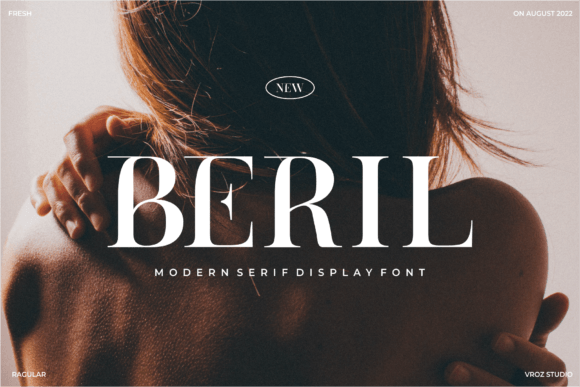
The Ultimate Guide to Beril Font: Elevate Your Designs with Modern Elegance
I’ll never forget the time I was working on a fashion magazine project, and my client asked me to create a stunning cover that would grab attention. I spent hours browsing through font libraries, but nothing seemed quite right. That’s when I stumbled upon Beril Font – a modern display serif font that instantly elevated my design game. In this article, I’ll share my love for Beril Font, its features, and provide a comprehensive guide on how to use it across various platforms.
An Honest Review of Beril Font
Beril Font has become a staple in my design toolkit, and here’s why:
- ✨ Stunning modern aesthetic: Beril Font boasts a sleek, contemporary design that adds a touch of sophistication to any project.
- ✅ Versatility: From fashion magazines to wedding invitations, Beril Font adapts seamlessly to various design contexts.
- 💡 Excellent legibility: Despite its elegant design, Beril Font remains highly legible, even at smaller font sizes.
However, no font is perfect, and Beril Font has a few minor quirks:
- 🤔 Limited italic variations: While Beril Font offers beautiful regular and bold weights, the italic variations are somewhat limited.
- ⚠️ Occasional kerning issues: As with any font, some users may experience kerning issues when using Beril Font in specific design contexts.
A Practical Guide to Using Beril Font
- Experiment with OpenType features, such as stylistic alternates, to add visual interest to your design.
The Story Behind Beril Font
Beril Font was designed with the modern designer in mind. Its creator aimed to craft a font that would be both elegant and versatile, suitable for a wide range of design applications. Inspired by the beauty of serif fonts, Beril Font combines classic typographic elements with a fresh, contemporary aesthetic.
| Font Name | Beril Font |
| Author | Vroz Studio |
| What is Beril Font best suited for? | Beril Font is perfect for fashion, magazines, logos, branding, photography, invitations, wedding invitations, quotes, blog headers, posters, advertisements, postcards, books, websites, and more. |
| Is Beril Font easy to read? | Yes, Beril Font is designed to be highly legible, even at smaller font sizes. |
| Does Beril Font come with a wide range of OpenType features? | Yes, Beril Font offers a range of OpenType features, including stylistic alternates, glyphs, and ligatures. |